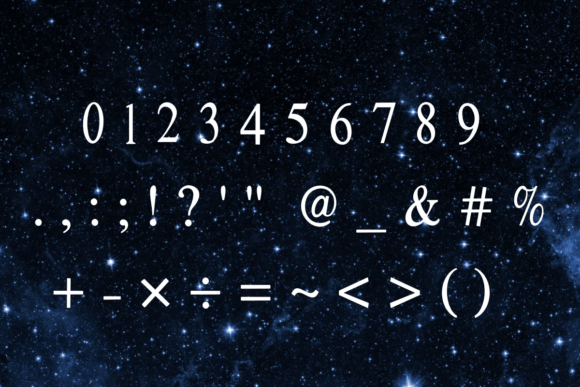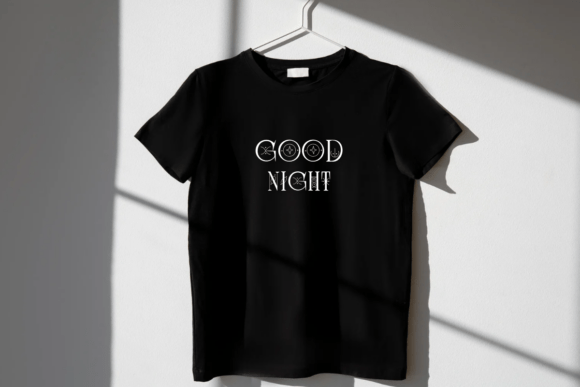
Moon Glyphs Font
Moon Glyphs is a mystical decorative font inspired by celestial symbols and ancient scripts. Its intricate shapes and ethereal style evoke mystery and magic, perfect for fantasy-themed projects, book covers, or spiritual branding. This enchanting typeface adds a sense of wonder to any design.